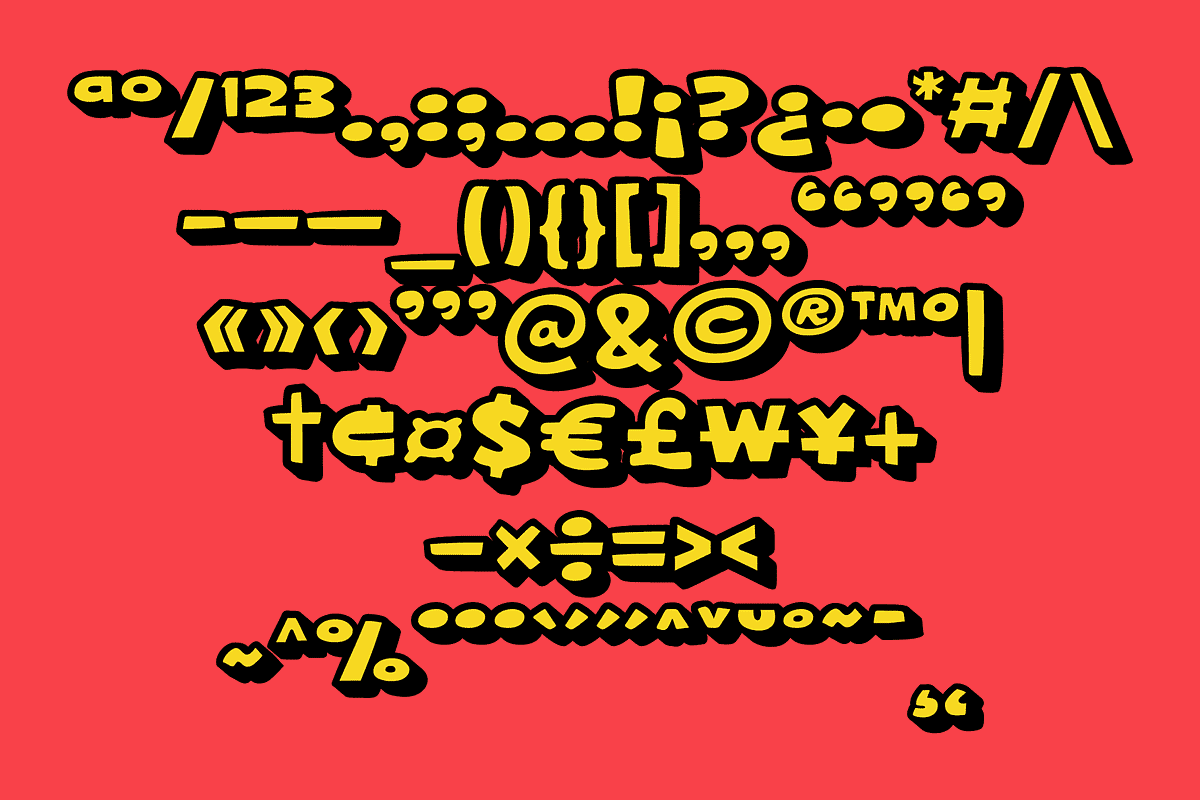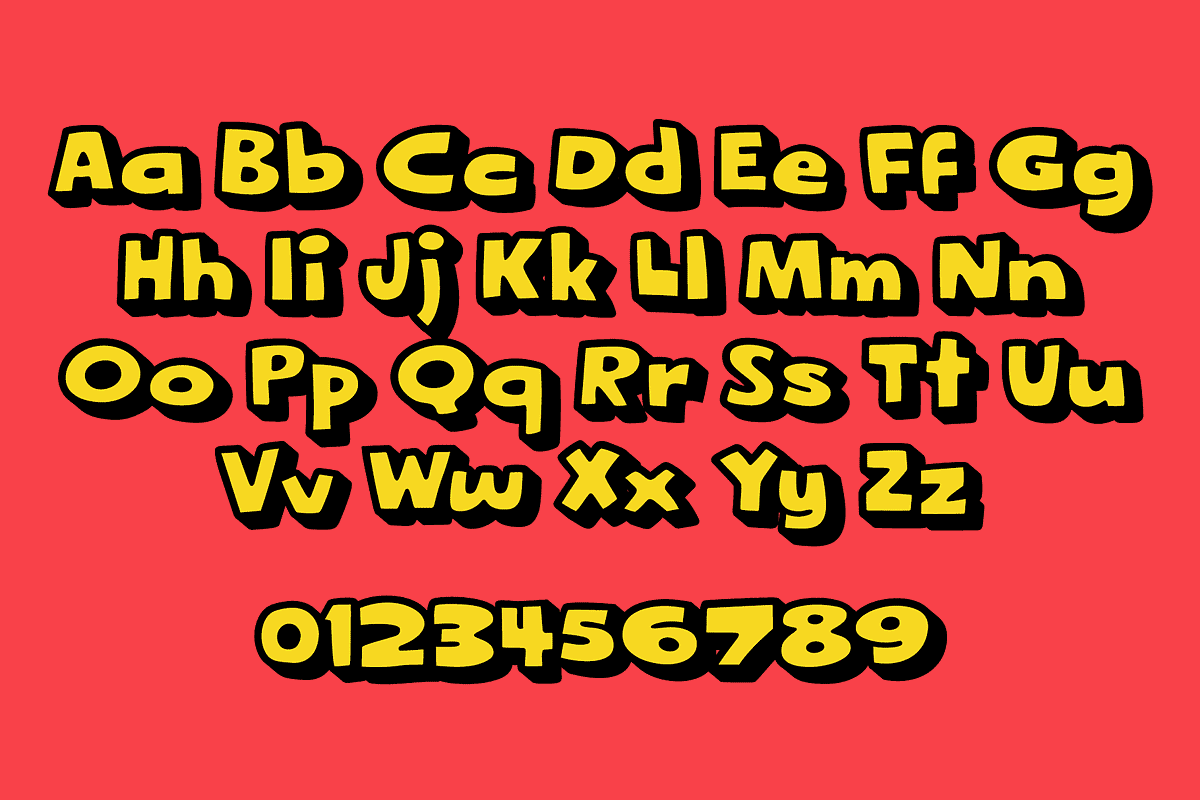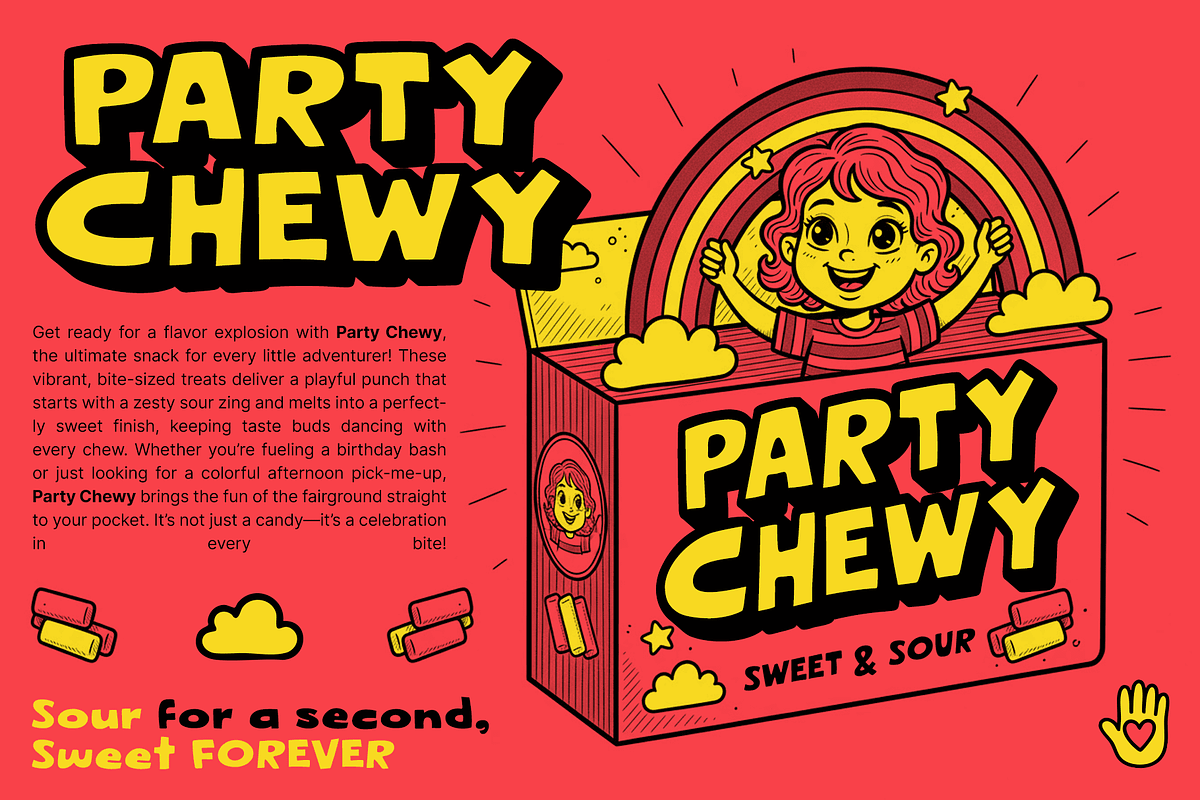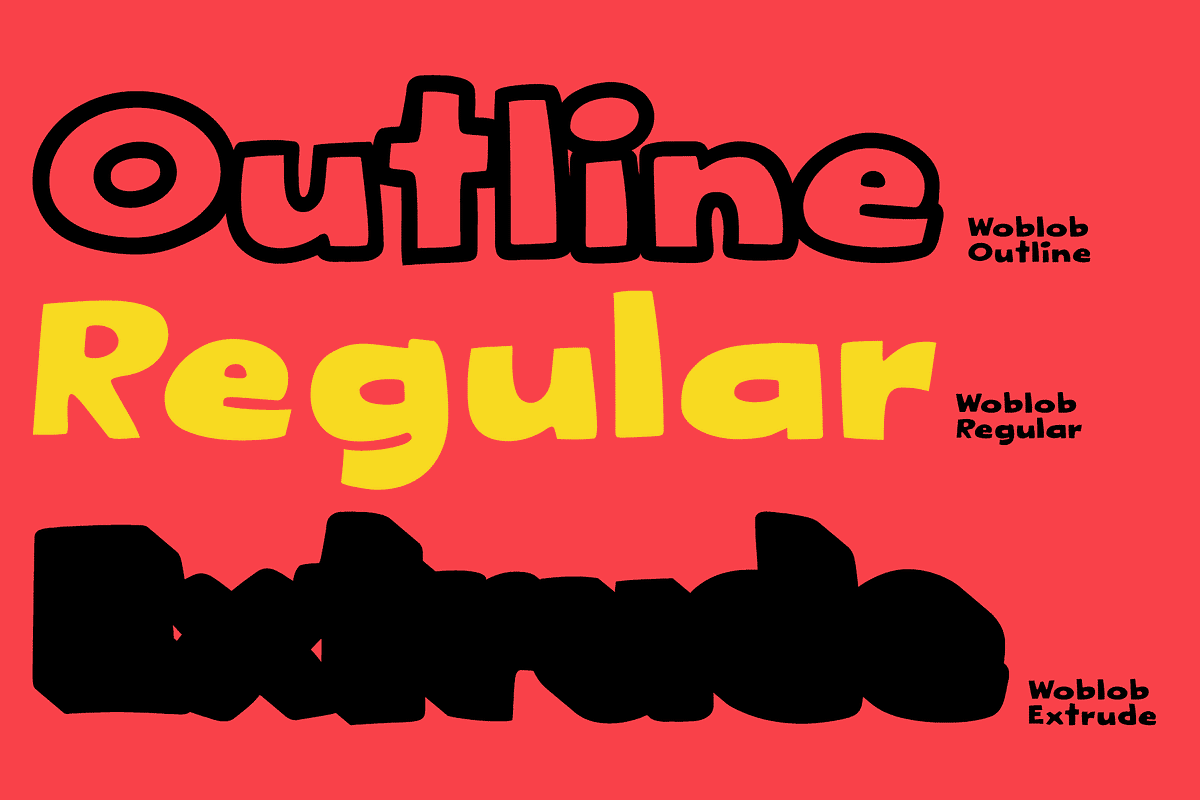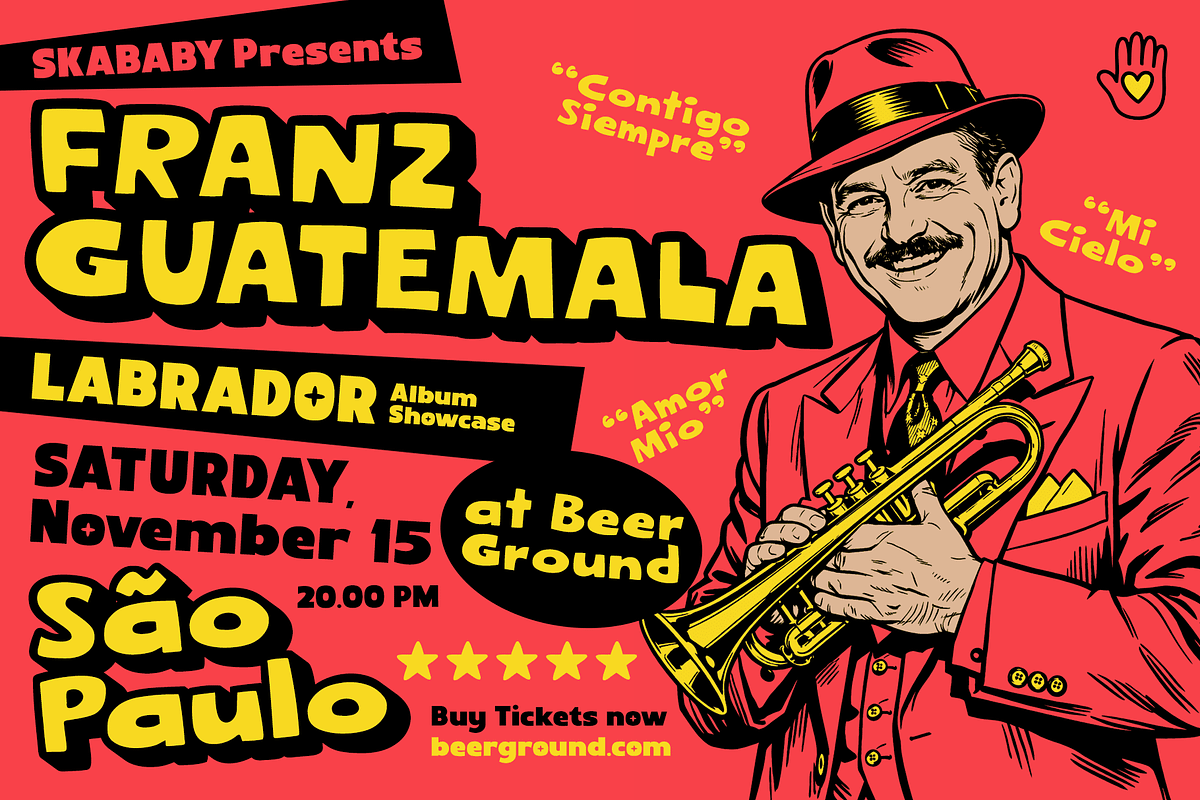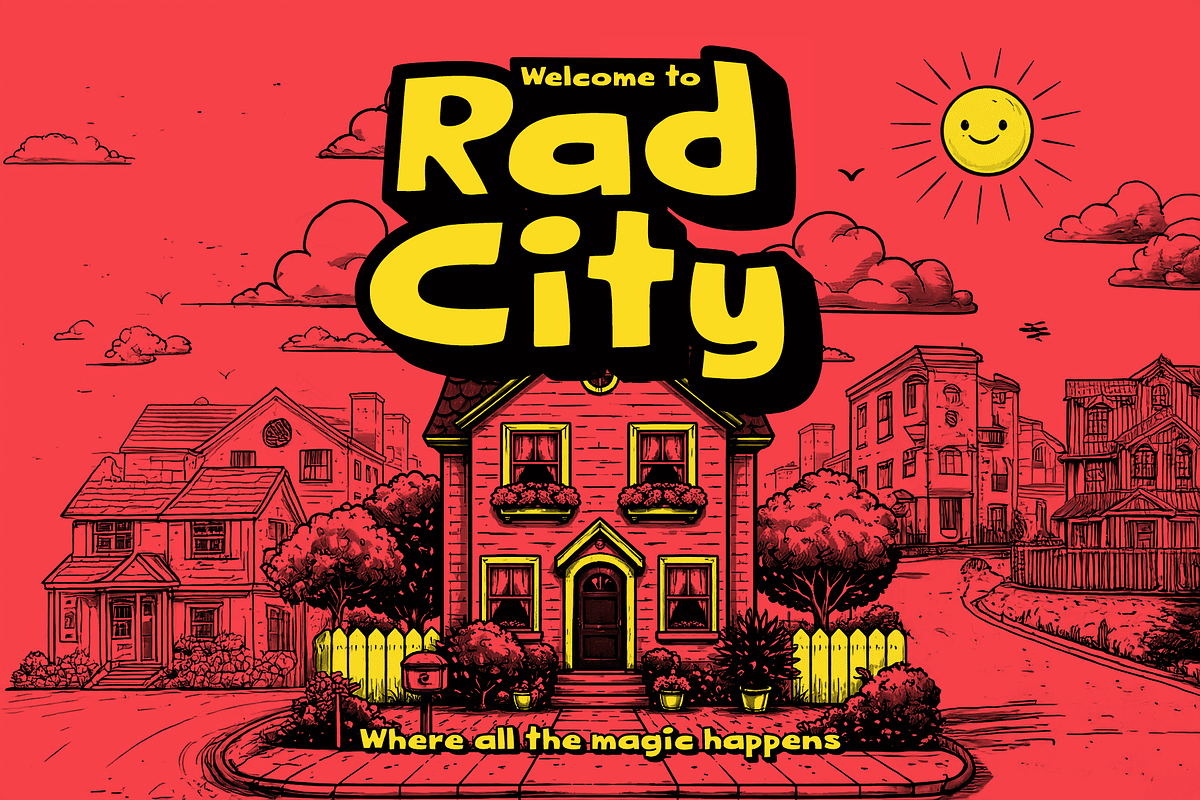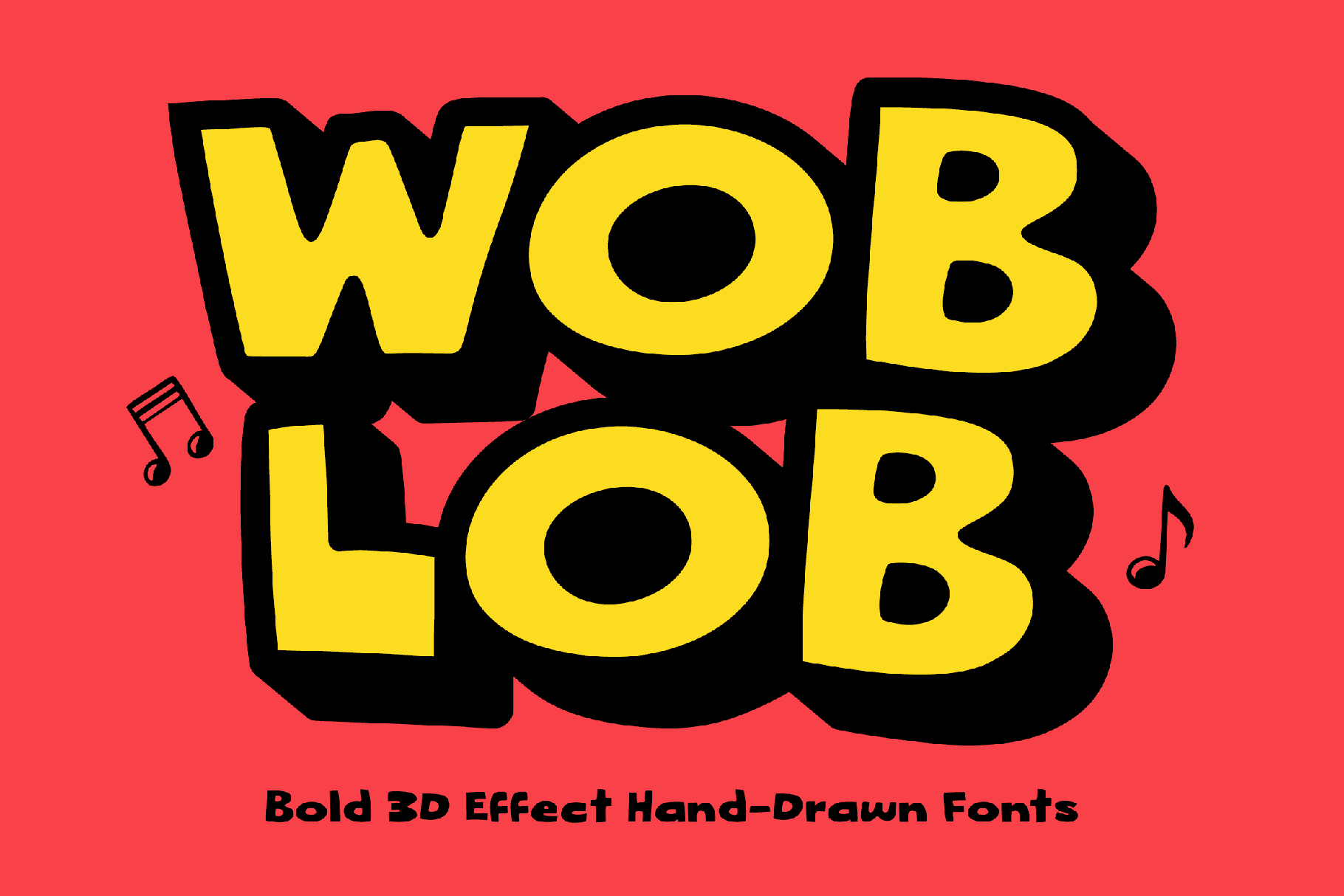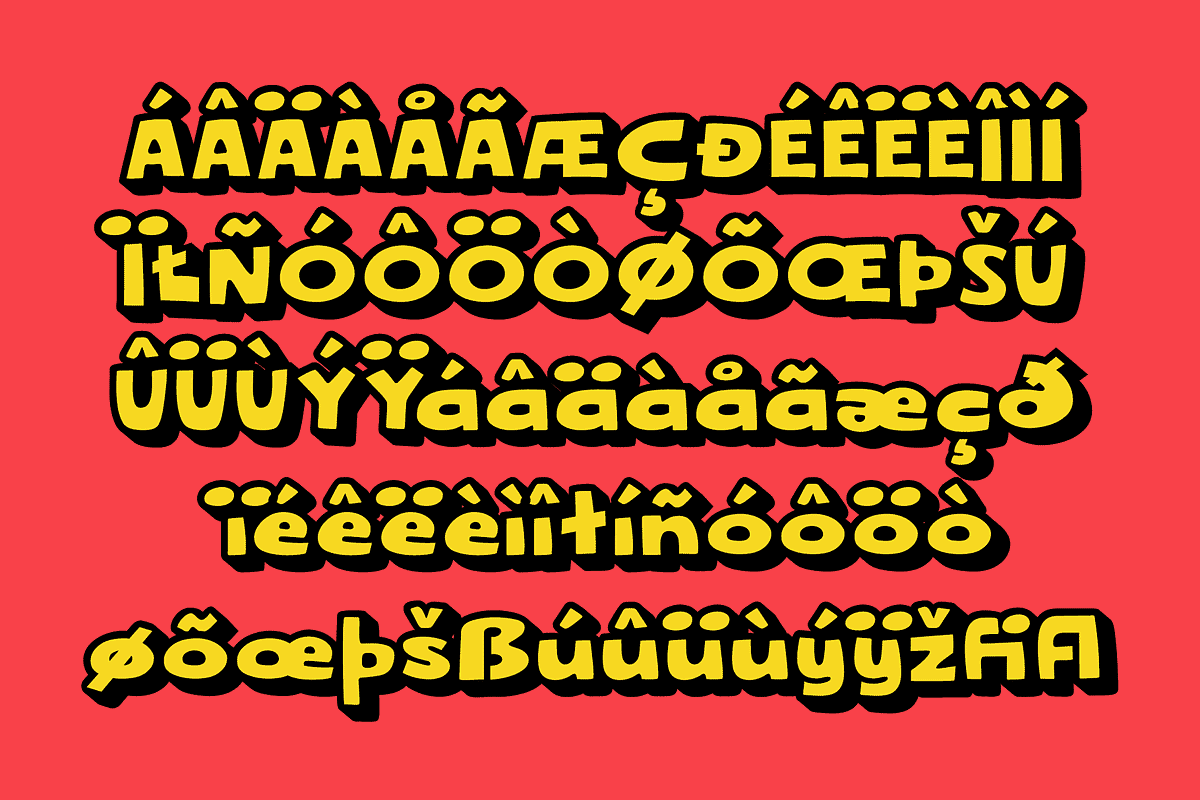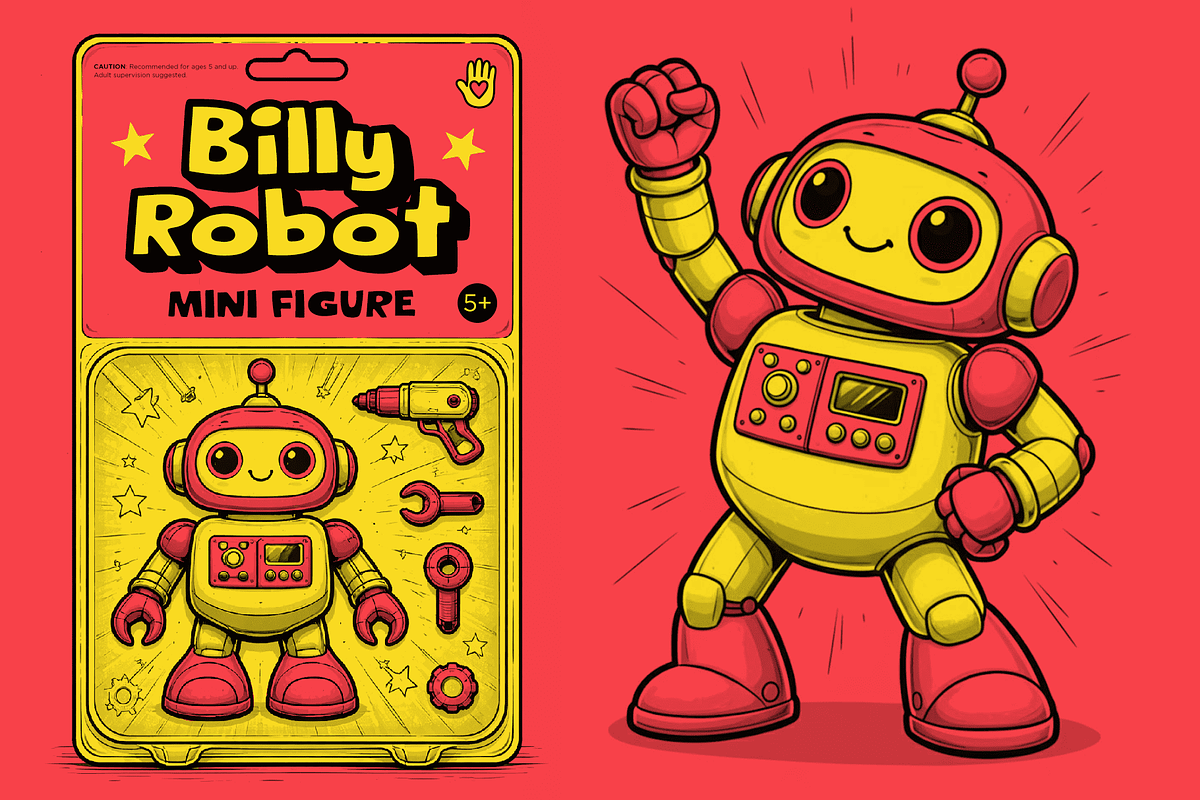
Woblob - Bold Hand Drawn Fonts
Give your creative projects a shot of pure energy with Woblob, a bold, playful, and meticulously hand-drawn font family designed to pop off the screen and the page.
Forget flat designs. Woblob isn’t just a typeface; it’s a layerable 3D typography system that brings a professional, custom-lettered look to your fingertips in seconds. Whether you’re building a brand from scratch or looking for that perfect "youth vibe" headline, Woblob delivers a fun, casual, and high-impact aesthetic.
The Power of Three: Layer & Level Up Woblob is engineered for versatility. By stacking the three distinct weights, you can create a fully realized 3D effect that looks like it was custom-illustrated by a pro.
Woblob Regular: The solid heart of your design. Thick, juicy, and full of personality.
Woblob Outline: Adds that classic comic-book or streetwear edge with a clean, hand-drawn stroke.
Woblob Extrude (Shadow): The secret sauce. This layer adds depth and dimension, creating a massive 3D presence.
Pro Tip: Stack them (Shadow at the back, Regular in the middle, Outline on top) and play with contrasting colors to create an instant masterpiece.